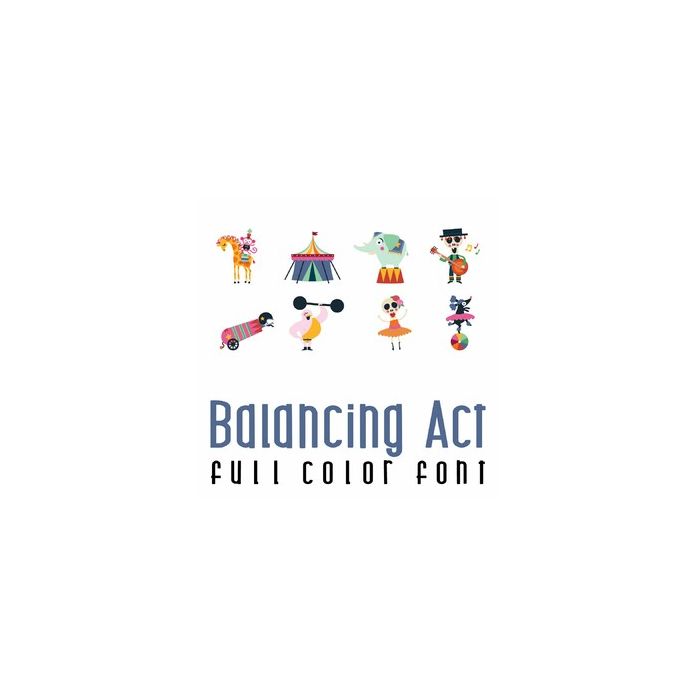
This adorable full-color doodlebat font features 35 adorable circus characters and skeletons. Perfect for cards, crafts, gifts, decor, scrapbook pages, planner stickers, Halloween and more!